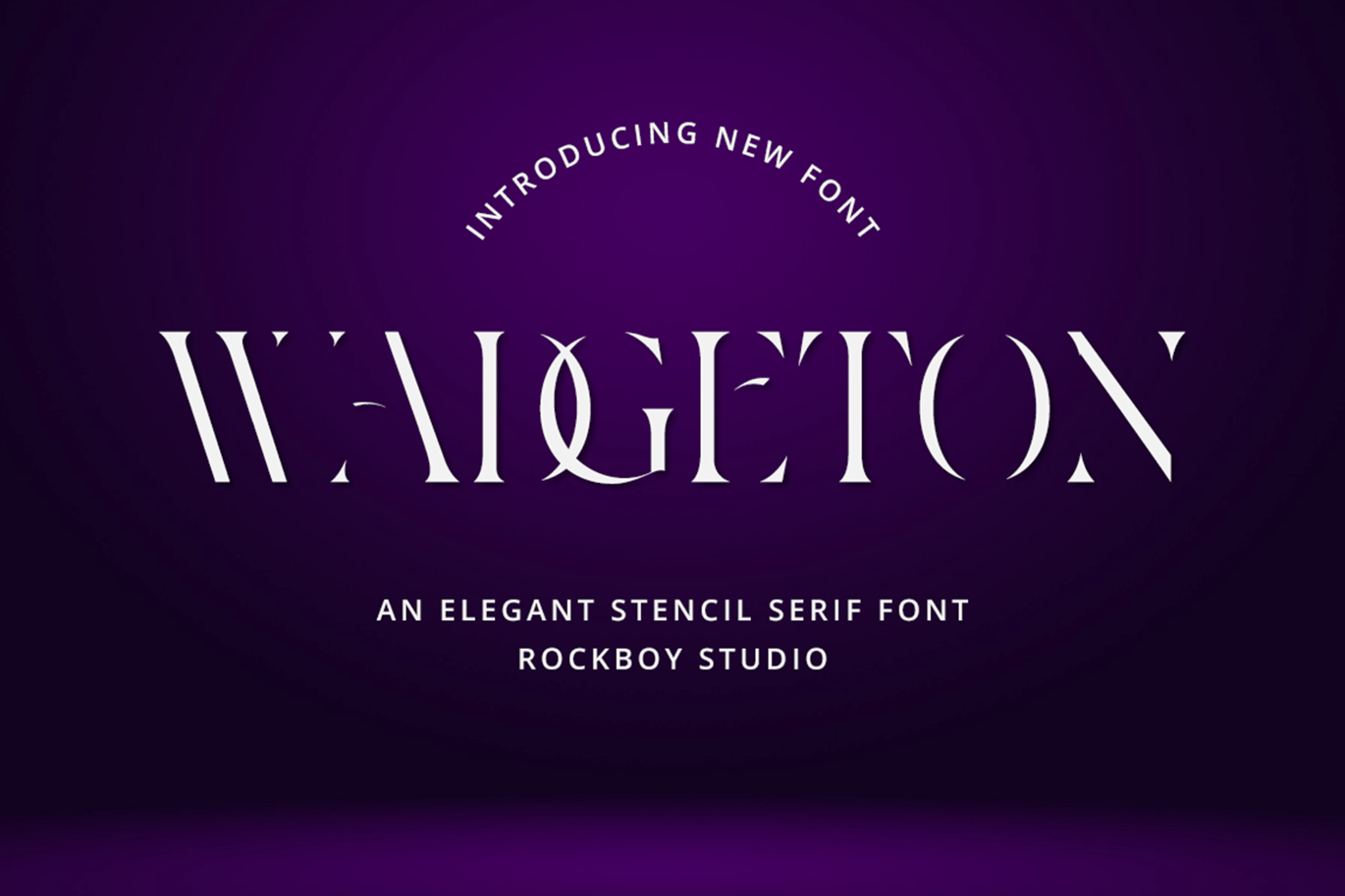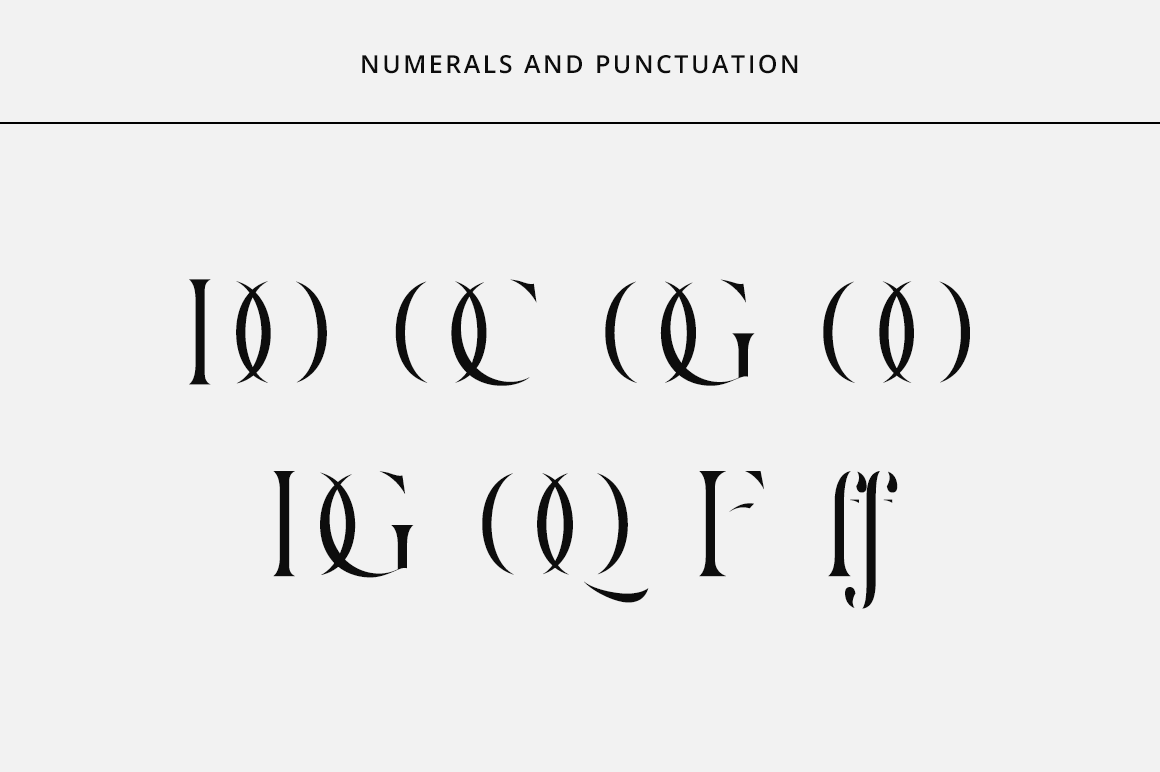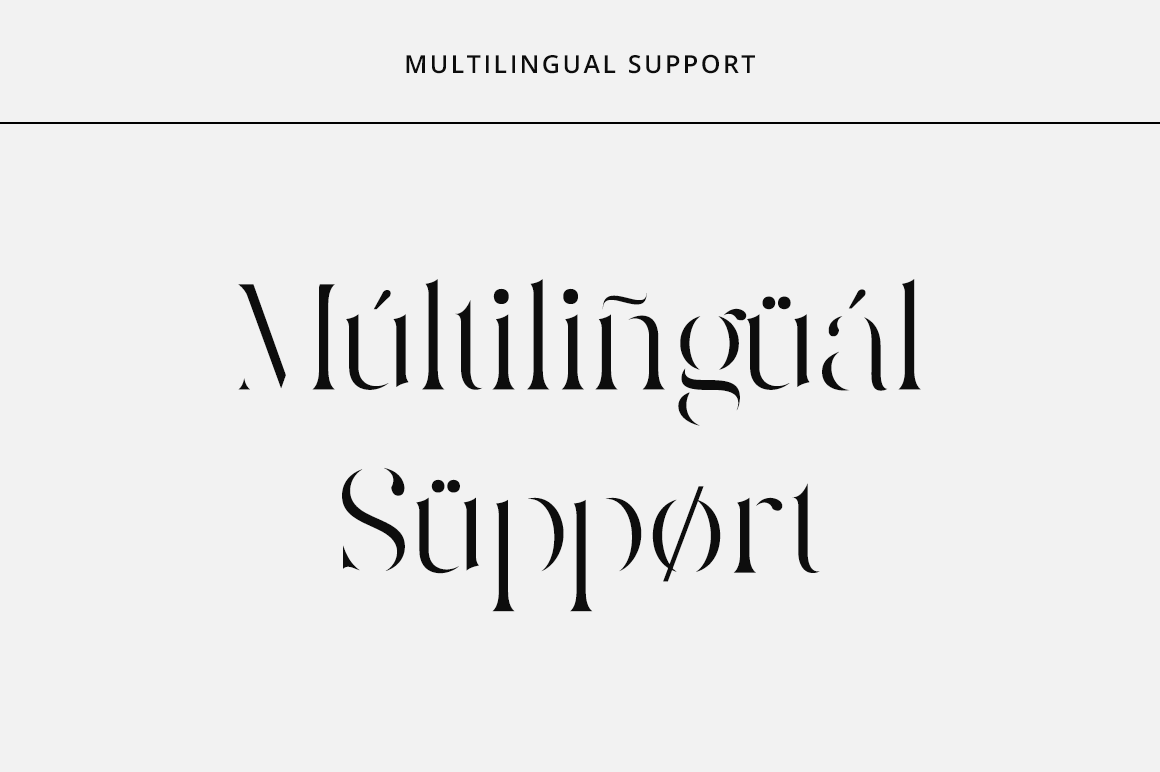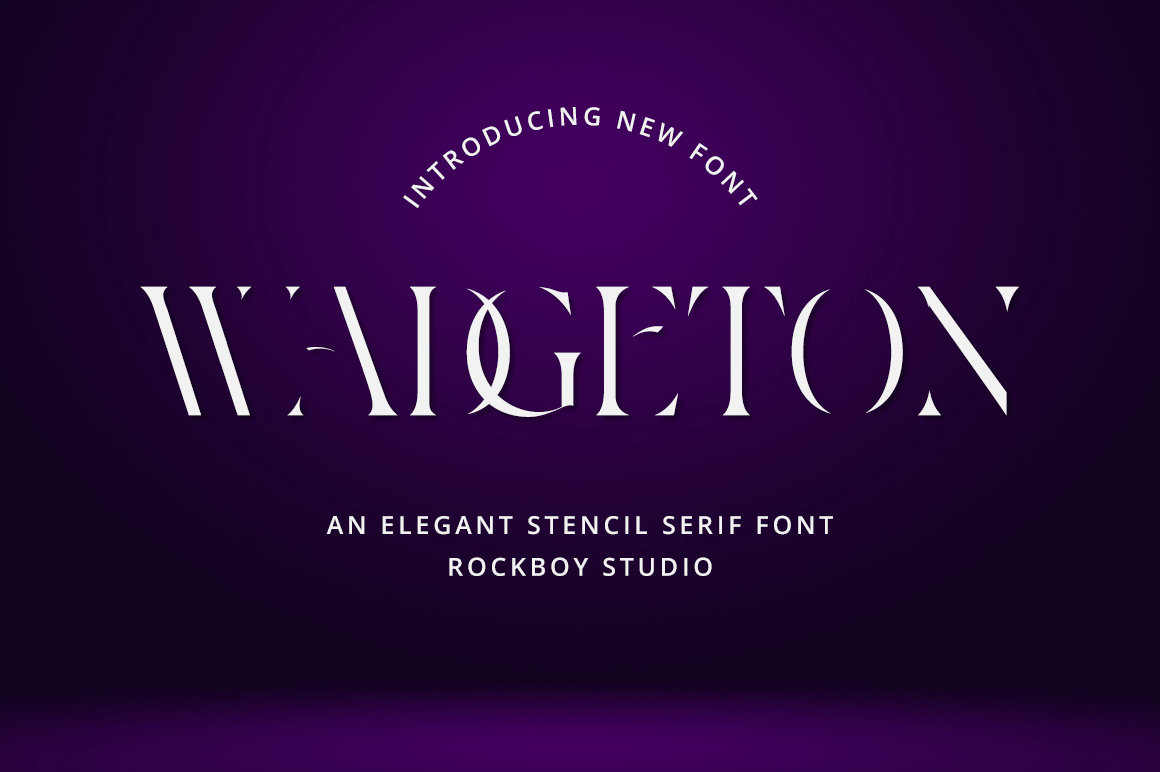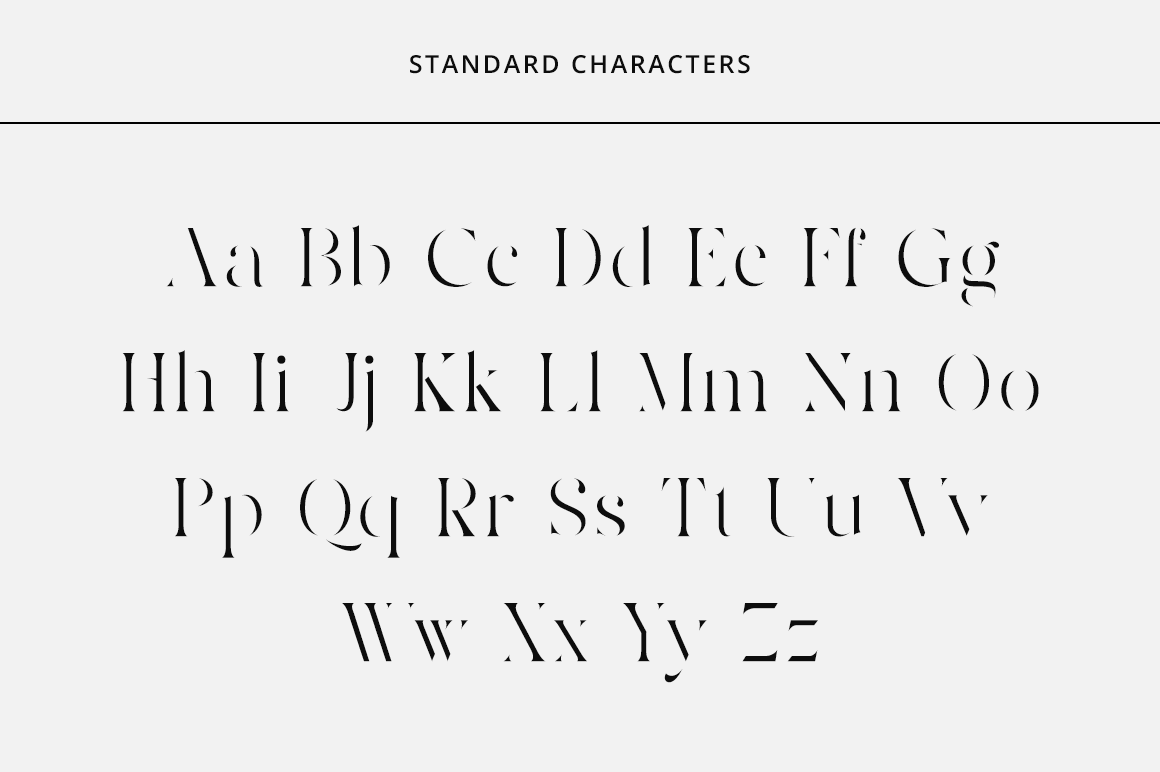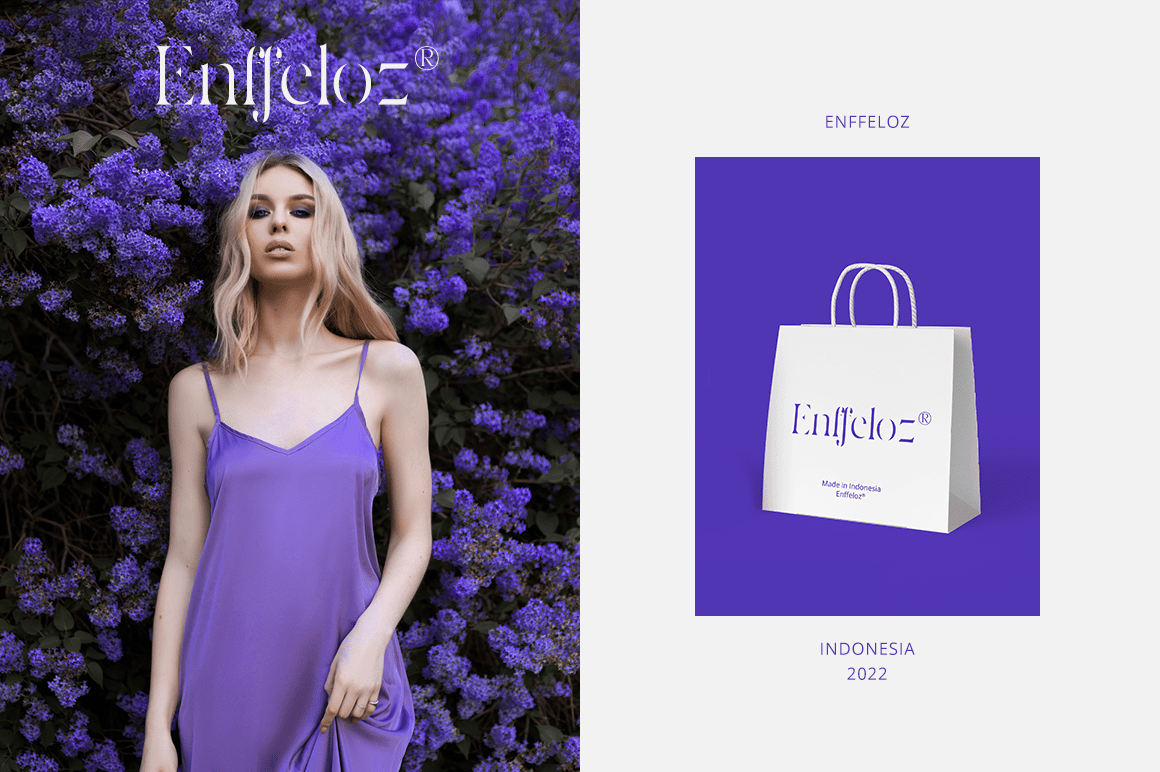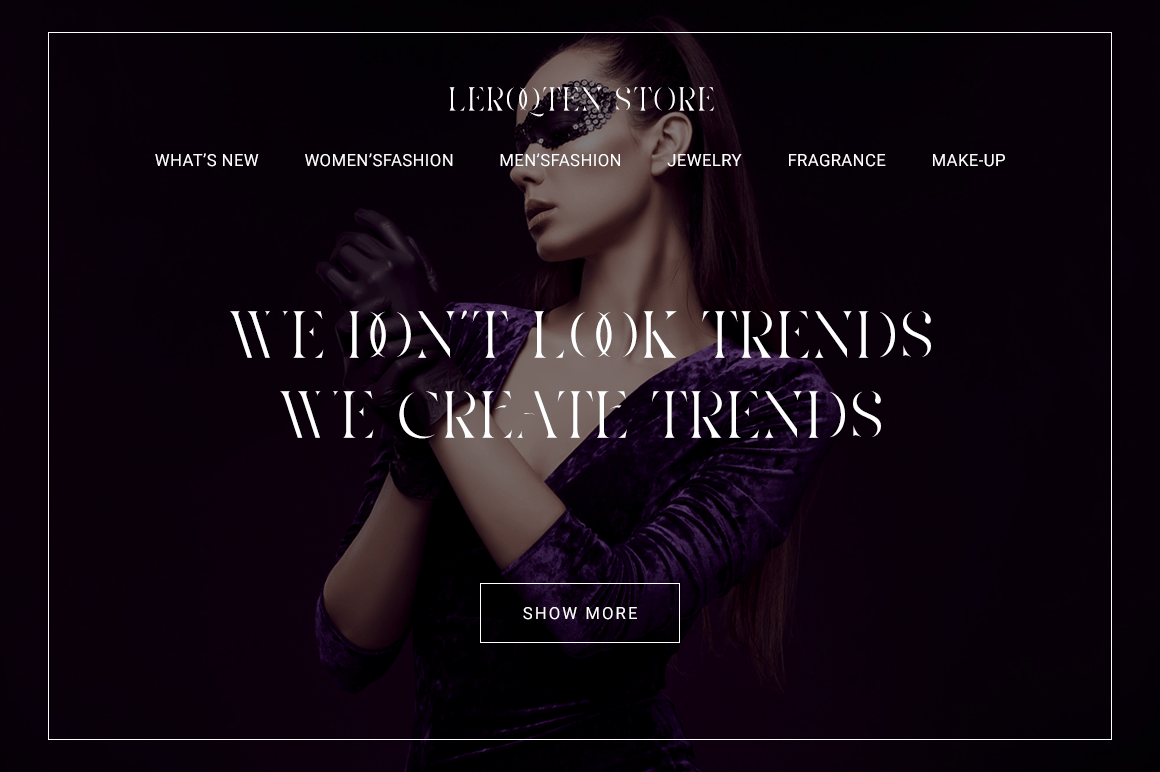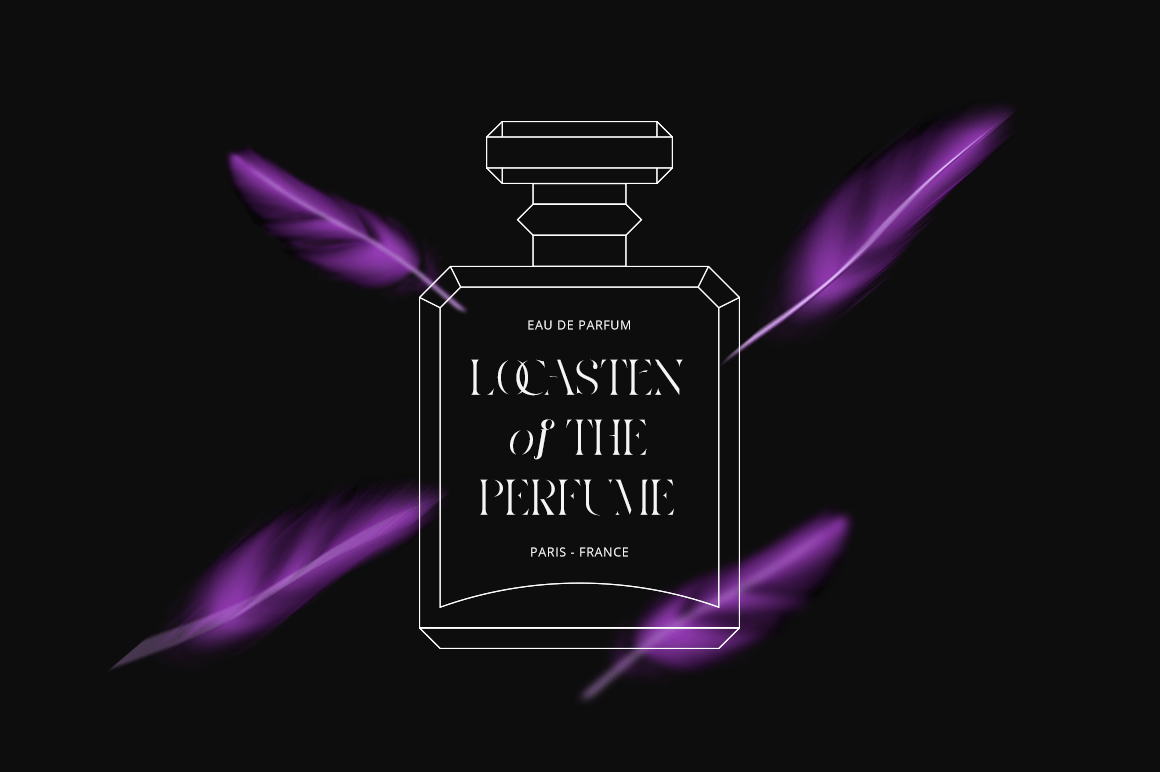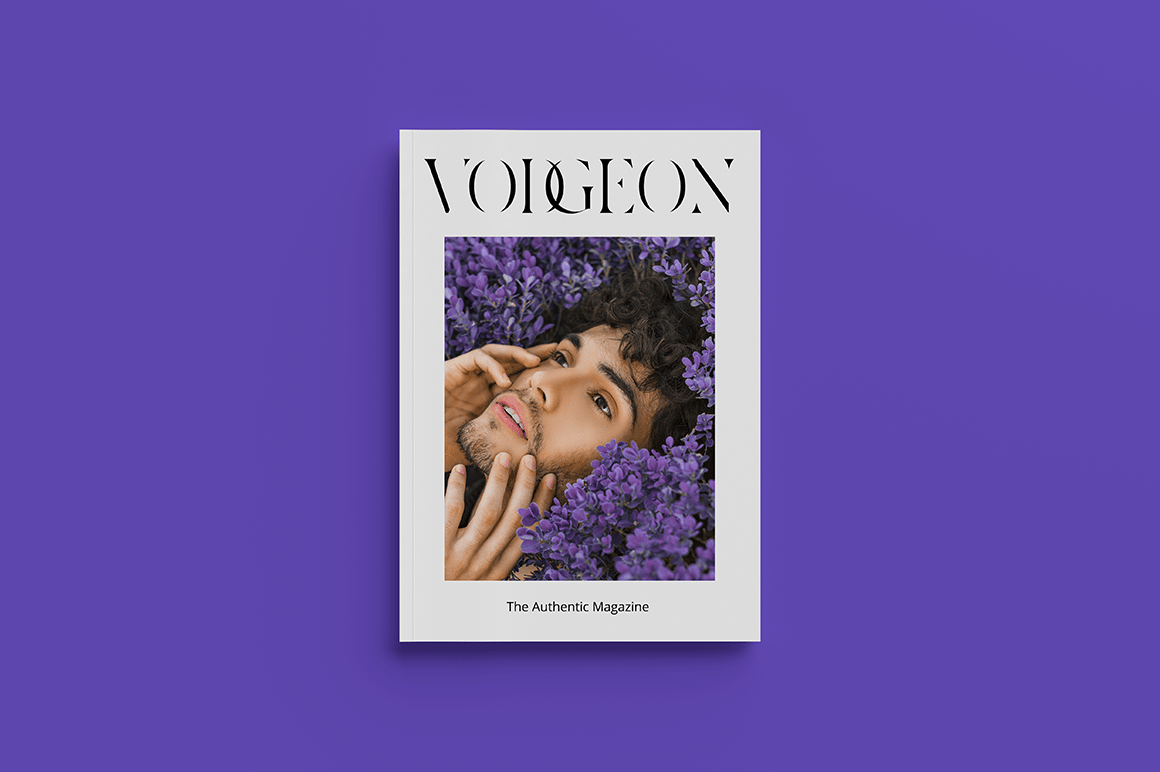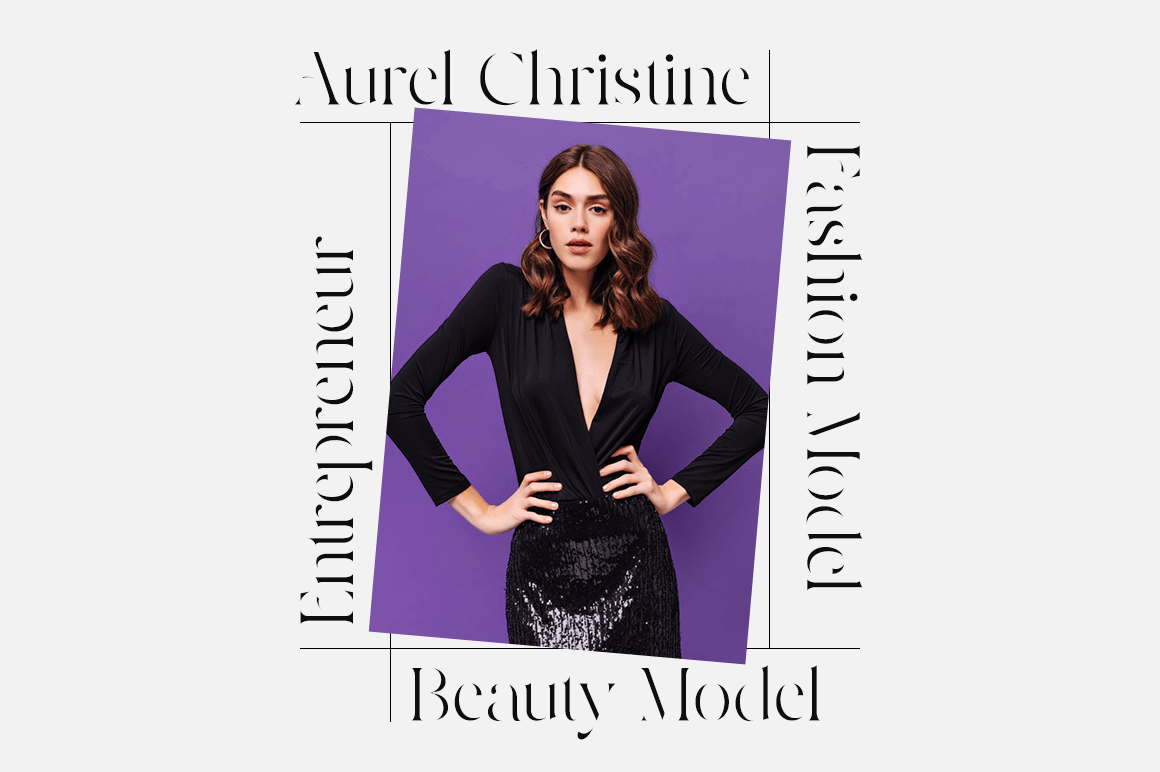
Wadgeton – Logo Font
Wadgeton is a stylish and elegant serif font. Fall in love with its incredibly distinct and timeless style and use it to create spectacular designs!